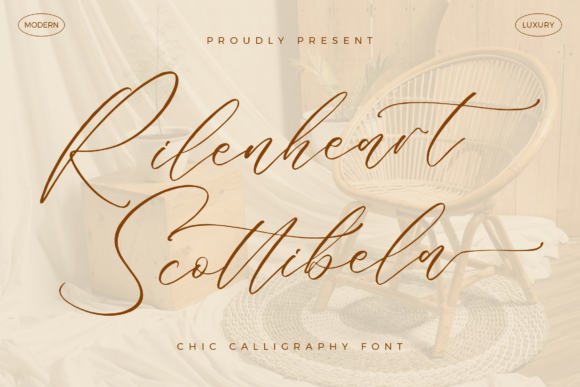
Introducing Rilenheart Scottibela Font, the perfect script font for all your wedding menu needs. Created by Storytype Studio, this font is not only visually stunning but also highly versatile, making it a must-have for any design enthusiast.
With its dazzling and intricate details, Rilenheart Scottibela Font adds a touch of elegance and sophistication to any project. Whether you're designing wedding invitations, menu cards, or even personalized thank-you notes, this font will elevate your creations to a whole new level.
Imagine the excitement and anticipation your guests will feel when they receive a beautifully designed wedding menu featuring Rilenheart Scottibela Font. Its graceful strokes and charming curves will captivate their attention and set the tone for an unforgettable dining experience.
Not only does Rilenheart Scottibela Font offer aesthetic appeal, but it also provides unmatched functionality. Its extensive character set allows you to experiment with various letter combinations and create unique typography designs. From ornate titles to delicate flourishes, the possibilities are endless.
This font isn't just a pretty face – it's a powerful tool that helps you convey emotions and tell stories through your designs. Its delicate yet assertive nature evokes feelings of romance, love, and joy, making it the ideal choice for any wedding-related project.
But don't limit yourself to just weddings – Rilenheart Scottibela Font is a versatile companion for any occasion. Whether you're designing birthday cards, anniversary gifts, or even branding materials, this font will add that extra touch of elegance and charm.
Choose Rilenheart Scottibela Font and let your creativity flourish. It's time to make a statement and leave a lasting impression. Get ready to mesmerize your audience with the captivating beauty of this extraordinary script font.